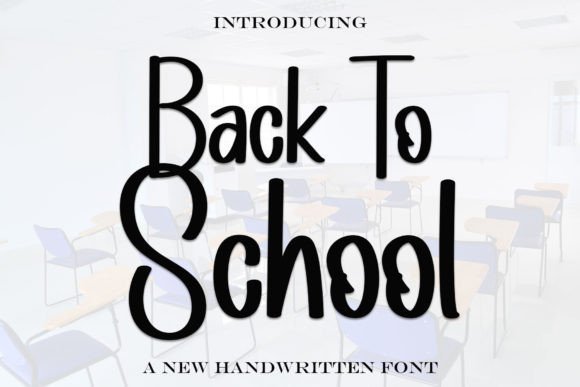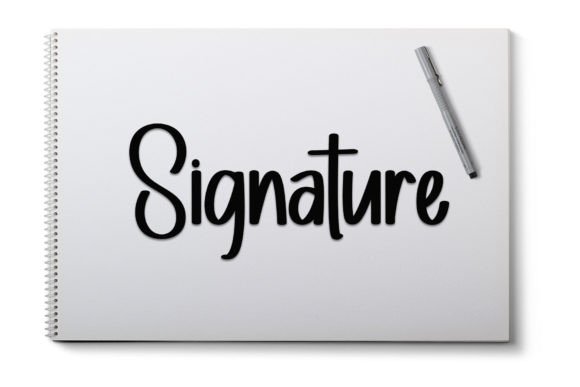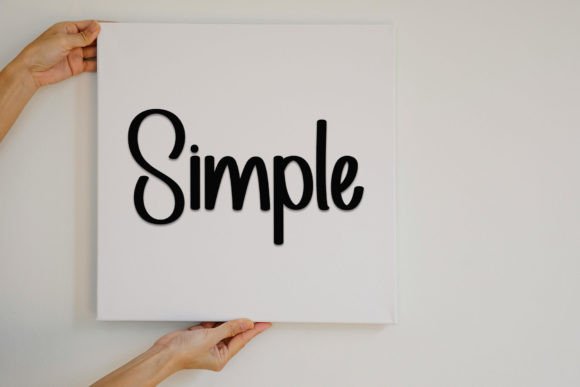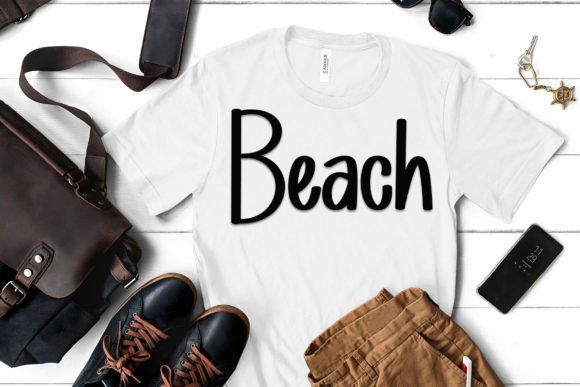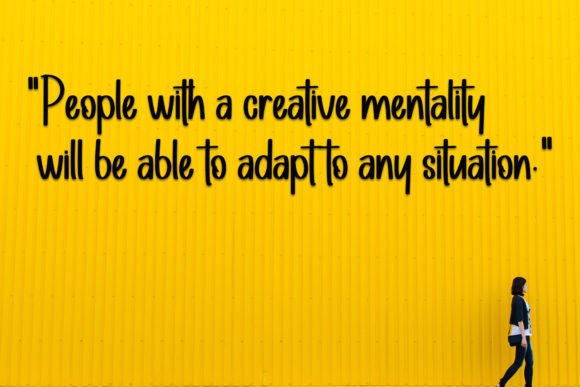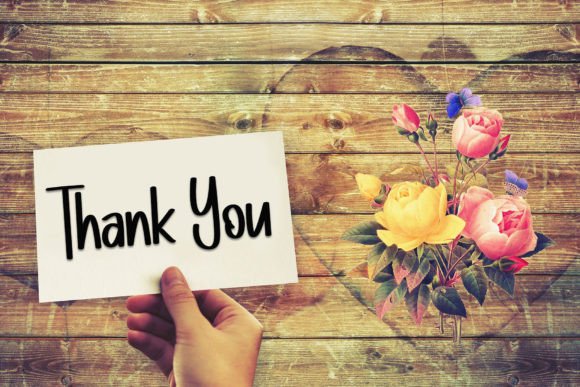
Get Ready to Write Your Way Back to School
As the summer sun starts to set, creatives everywhere are dusting off their pencils, sharpening their minds, and preparing for the upcoming design season. The back to school vibes are in the air, and we’re feeling inspired to dive into new projects and explore fresh ideas. One of the most exciting parts of this time of year is discovering new fonts that will elevate our designs and make them truly stand out.
That’s where the Back to School Font comes in – a trendy handwritten font that exudes a contemporary atmosphere and impeccable form, inspired by timeless classic calligraphy. This beautiful font is the perfect addition to any design project, adding a touch of elegance and class that’s sure to impress. Whether you’re a seasoned designer or just starting out, the Back to School Font is a valuable tool to have in your arsenal, and we can’t wait to see what amazing designs you’ll create with it.
Key Features of “Back to School Font”
- Font Style: A playful, cursive font designed to evoke a sense of nostalgia and whimsy, perfect for back-to-school themes and educational materials.
- Unique Characteristics: Features a distinctive, handwritten feel with subtle flourishes and swashes, adding a touch of personality to educational materials.
Designer Review: Back to School Font
Overall, I’d say the Back to School Font has some nice elements, but it also has some areas that could use improvement.
- The font’s playful, handwritten feel is perfect for creating a fun, approachable vibe in educational materials or summer-themed projects.
- The variety of ligatures and swashes adds a nice touch of personality to text, making it feel more dynamic and engaging.
- The font’s high x-height and open counters make it highly legible, even at smaller font sizes.
- The font’s limited character set may make it difficult to use for longer texts or formal documents.
- The font’s casual feel may not be suitable for more formal or professional projects.
- The font’s lack of consistency in letter spacing and word spacing may make it look a bit haphazard in certain contexts.
Overall, I think the Back to School Font is a great choice for projects that require a playful, summery feel. However, it may not be the best option for longer texts or more formal projects. With a bit more development, this font has the potential to be a real winner.